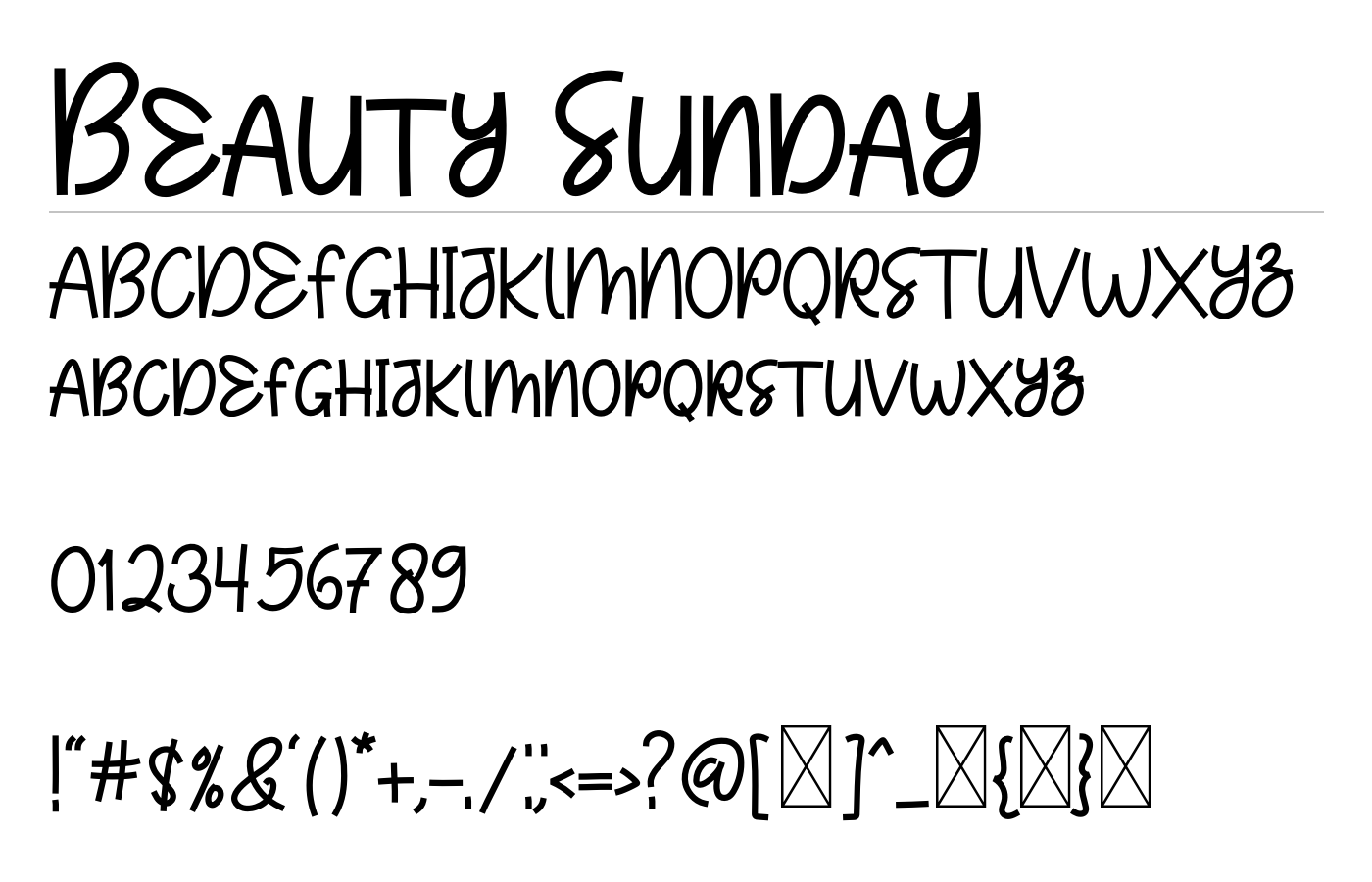
Beauty Sunday is a playful and casual handwritten sans serif font with a lively, slightly quirky character. Its medium weight, upright strokes, and varied letter shapes create a friendly and approachable feel, making it ideal for informal branding, invitations, or creative projects that seek a personal touch. This font works especially well in headlines, logos, and packaging where a fun and modern vibe is desired.
Beauty Sunday Font
About Beauty Sunday Font